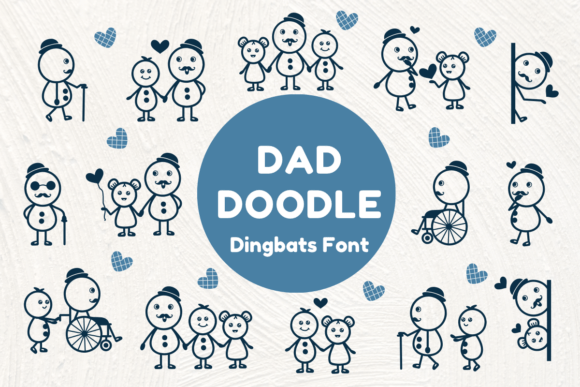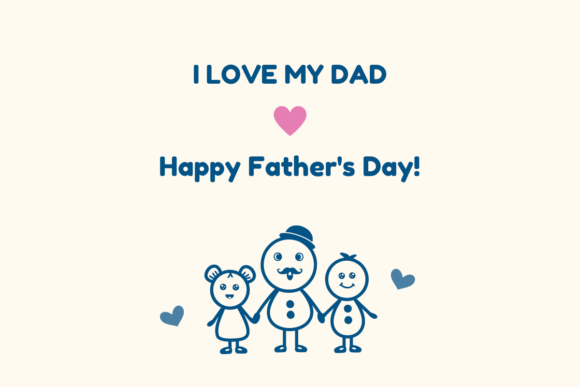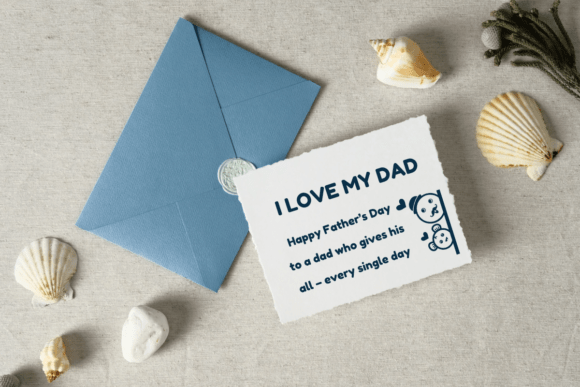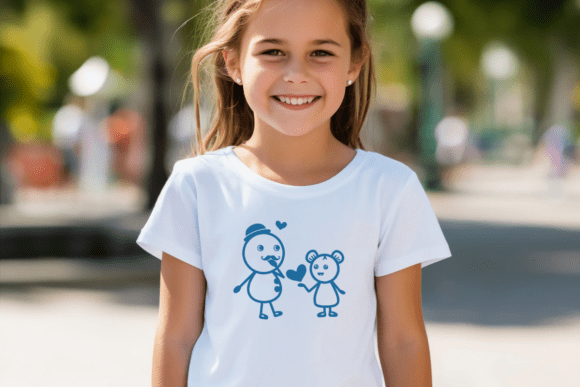
Dad Doodle Font: A Cute & Playful Dingbats Font for Crafts
About the Dad Doodle Font
Welcome to the world of Dad Doodle Font, a typeface that will inspire your next great project. DAD DOODLE is a dingbats font with a sentimental theme. This font can enhance your creative projects such as wedding invitations, DIY, crafts, decorations, logos, and many other creative ideas.
Dad Doodle’s playful, hand-drawn aesthetic makes it ideal for projects requiring a warm, personal touch. It excels in headlines, logos, short text on packaging, and social media graphics. However, its informal nature makes it unsuitable for body text or applications demanding high readability, such as lengthy website copy or UI elements.
Consider pairing Dad Doodle with a clean sans-serif like Open Sans for a balanced contrast, or a more refined serif such as Merriweather for a sophisticated yet approachable feel. For a playful combination, a script font like Pacifico could work well, although careful consideration of kerning might be necessary.
The font’s overall personality is friendly and approachable, conveying a sense of handmade charm and nostalgic sentimentality. This makes it perfect for brands focusing on family, crafts, or vintage-inspired products.
Dad Doodle Font Usage Examples
Dad Doodle Font Example